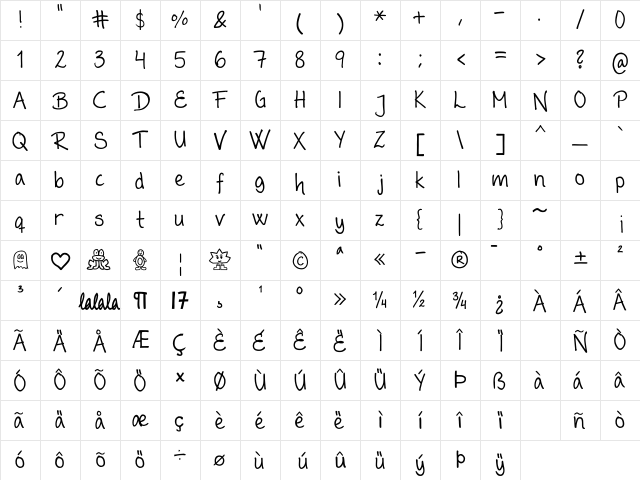
NewUnicodeFont Regular Free Font
NewUnicodeFont Regular
Foundry: High-Logic
Designer: High-Logic - Erwin Denissen 1999
Design Context for NewUnicodeFont
NewUnicodeFont uses fixed-width spacing throughout, giving it the structured, systematic character associated with coding environments and technical documentation.
Pro Tip: Use NewUnicodeFont with slightly increased line-height for extended reading - fixed-width spacing can feel dense in longer passages without extra breathing room.